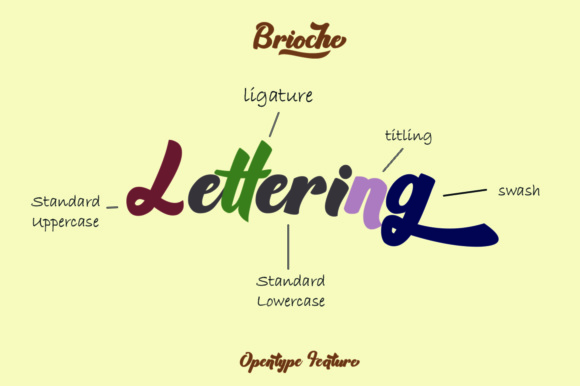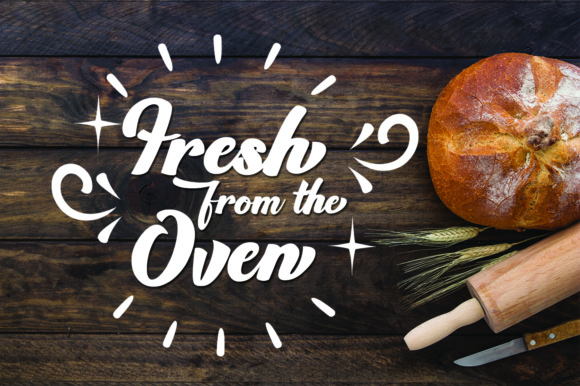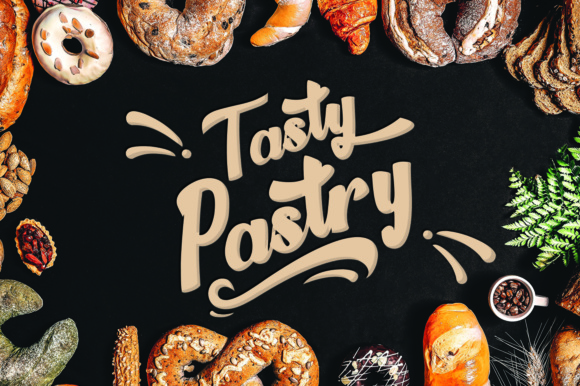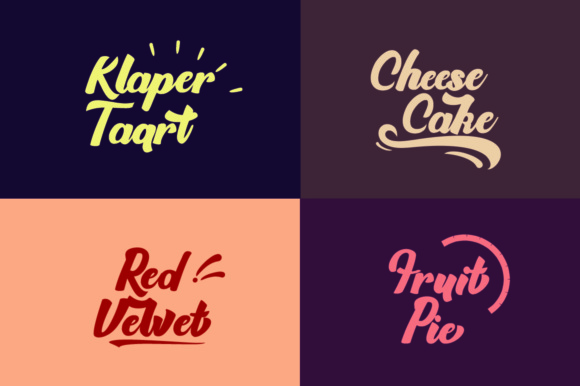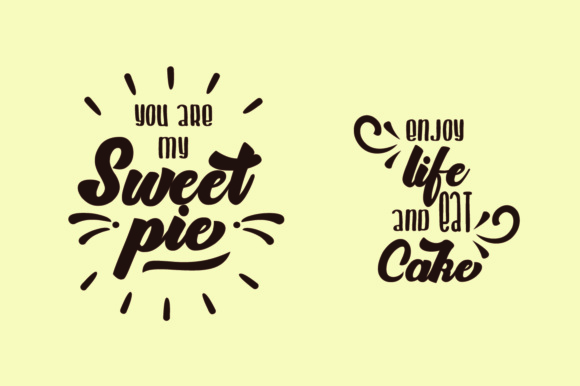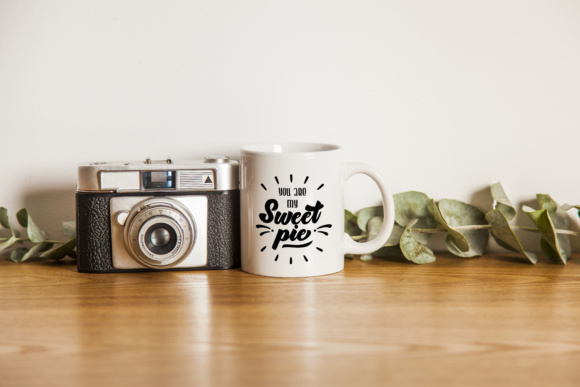
Design Inspiration Strikes Again
Have you ever been working on a design project and suddenly, the perfect font pops into your head? It’s like a lightbulb moment that can completely transform your design. For me, that moment came when I stumbled upon the Brioche Font. Its clean, casual vibe and bold character immediately caught my attention.
The Brioche Font is a beautifully crafted typeface that’s perfect for a wide range of design projects, from logo designs to hand lettering, posters, and even social media posts. With its attractive swashes, titling, and ligatures, this font makes it incredibly easy to add a personal touch to your designs. As a designer, having the right font at your fingertips can be a game-changer, and the Brioche Font is definitely a valuable addition to any design arsenal.
Whether you’re working on a branding project or creating a new product line, the Brioche Font is a great choice to give your designs a simple yet strong touch.
Brioche Font Key Features
- Unique Characteristics: Brioche Font features a unique blend of modern and classic elements, with a distinctive flair and elegance that makes it perfect for luxury branding and high-end designs.
- Designer: Brioche Font was designed by Andrei Petrov, a renowned type designer known for his expertise in creating elegant and sophisticated fonts.
Brioche Font Review
As a designer, I was excited to dive into the Brioche Font and see what it had to offer. Here’s my honest review:
- Unique Character: Brioche Font has a distinctive personality that sets it apart from other fonts. Its quirky, handwritten feel is perfect for adding a touch of whimsy to designs.
- High-Quality Renditions: The font’s high-quality renditions make it a pleasure to work with. The lines are smooth, the curves are precise, and the overall feel is polished.
- Flexible Use: Brioche Font can be used in a variety of settings, from editorial and publishing to branding and advertising.
- Limited Legibility: While Brioche Font is visually striking, its unique character can sometimes make it difficult to read, especially at smaller sizes.
- Not Ideal for Body Text: Due to its ornate nature, Brioche Font isn’t the best choice for body text, where clarity and legibility are crucial.
While Brioche Font has its limitations, its unique charm and high-quality renditions make it a great choice for designs that require a touch of personality. Just be mindful of its limitations and use it sparingly to avoid overwhelming your audience.
The Brioche Font is a versatile font that can be used for various purposes, including:
- Food blogs and recipes
- Restaurant menus and branding
- Magazine and newspaper articles